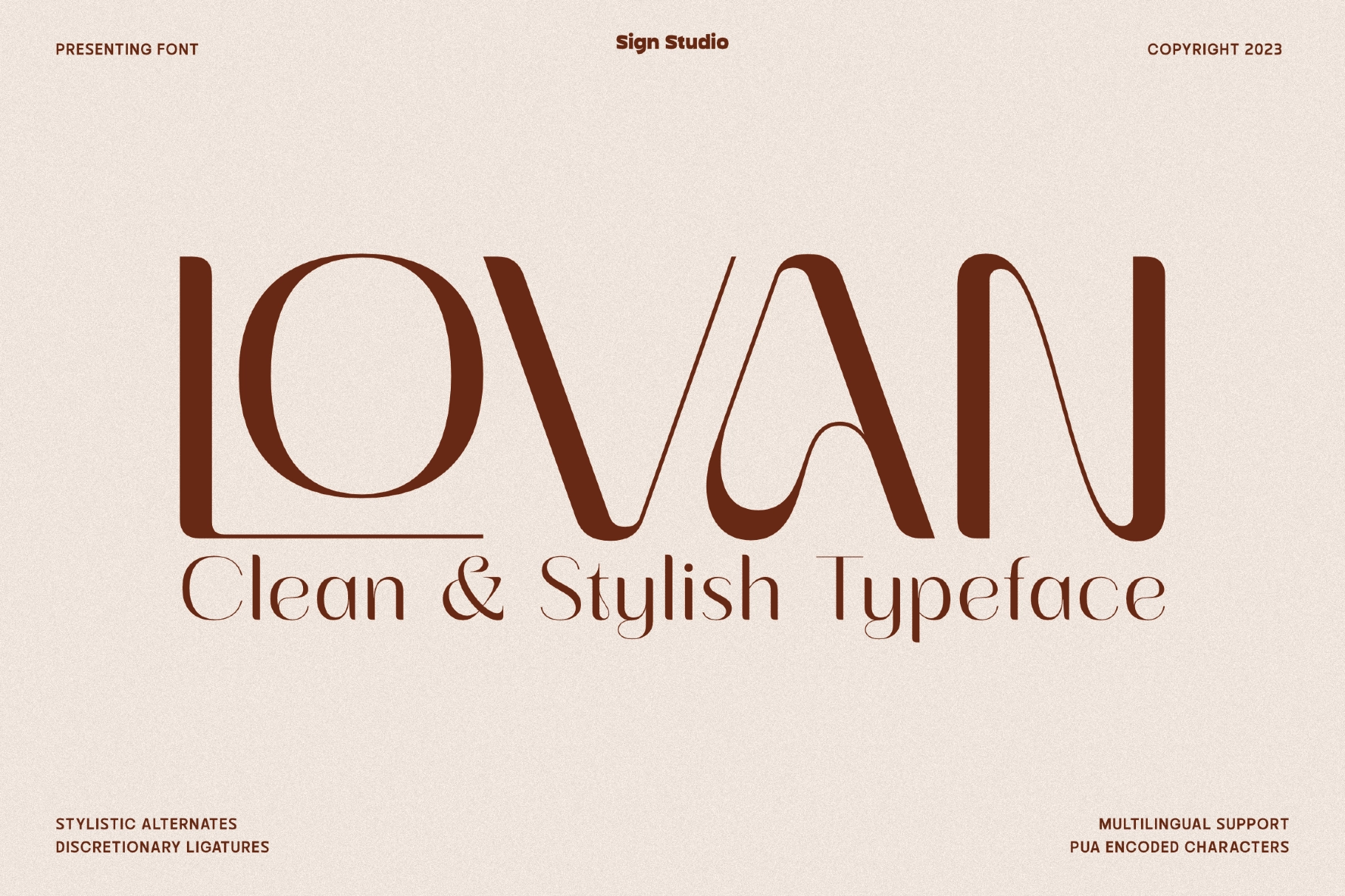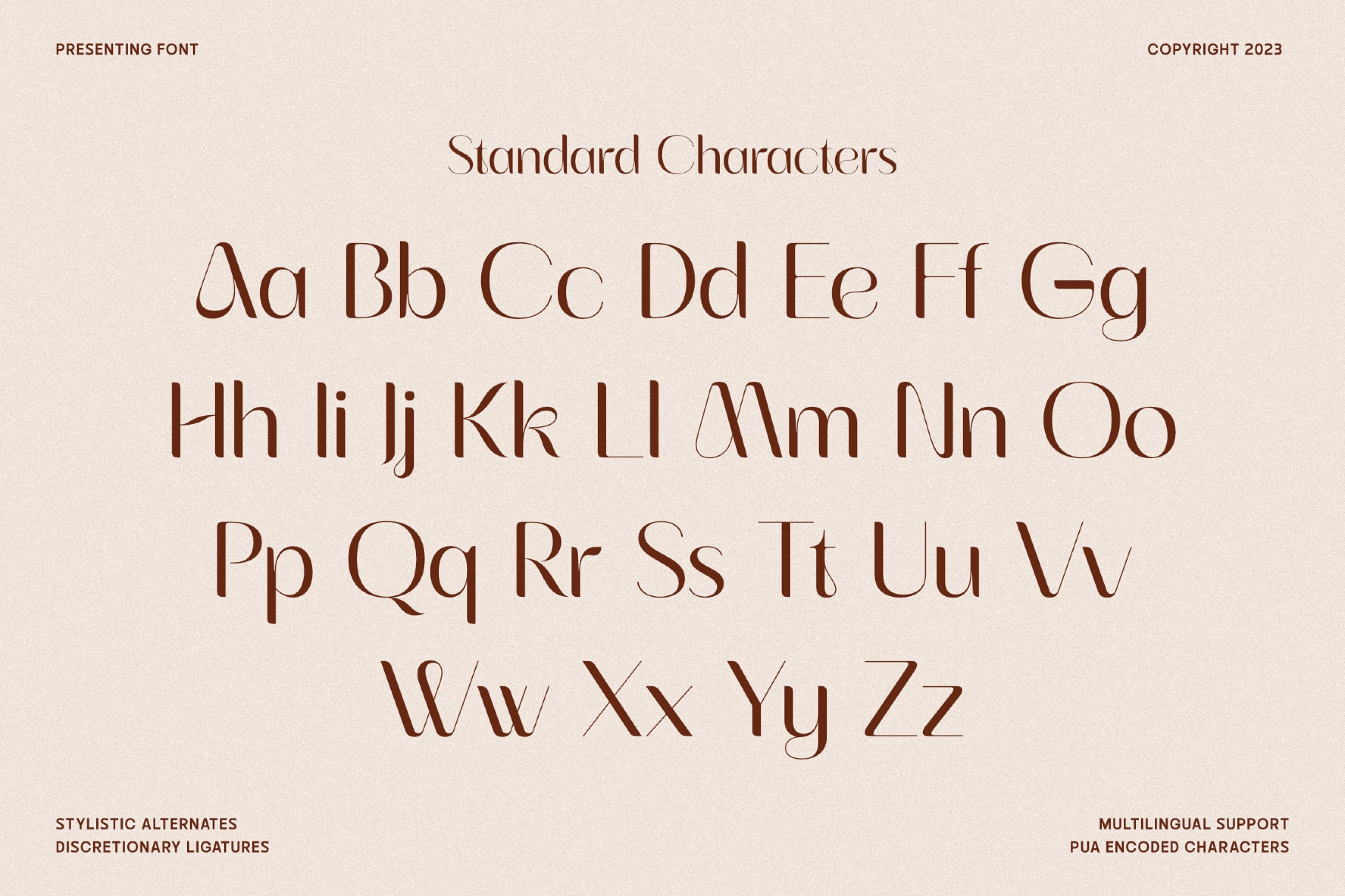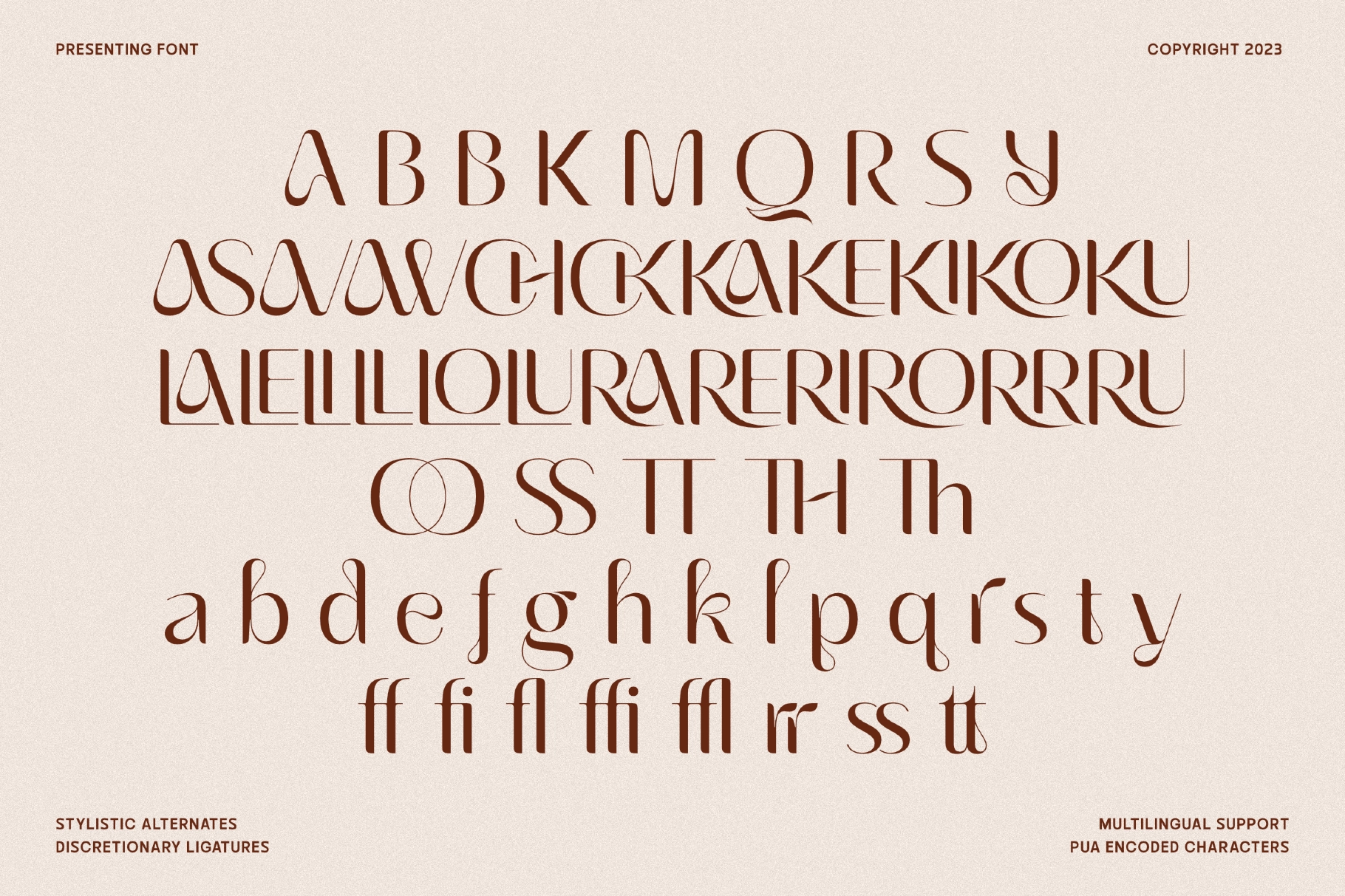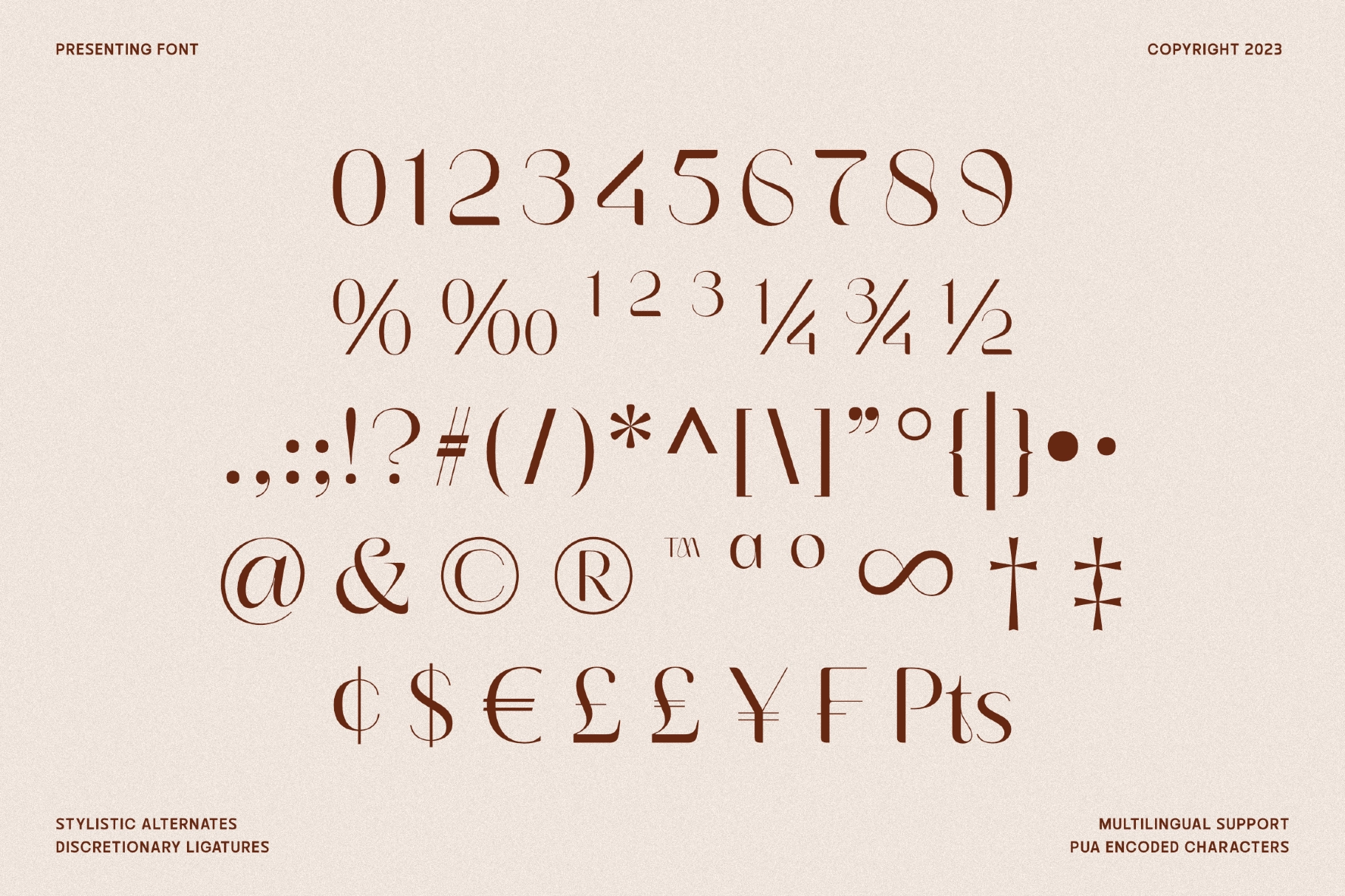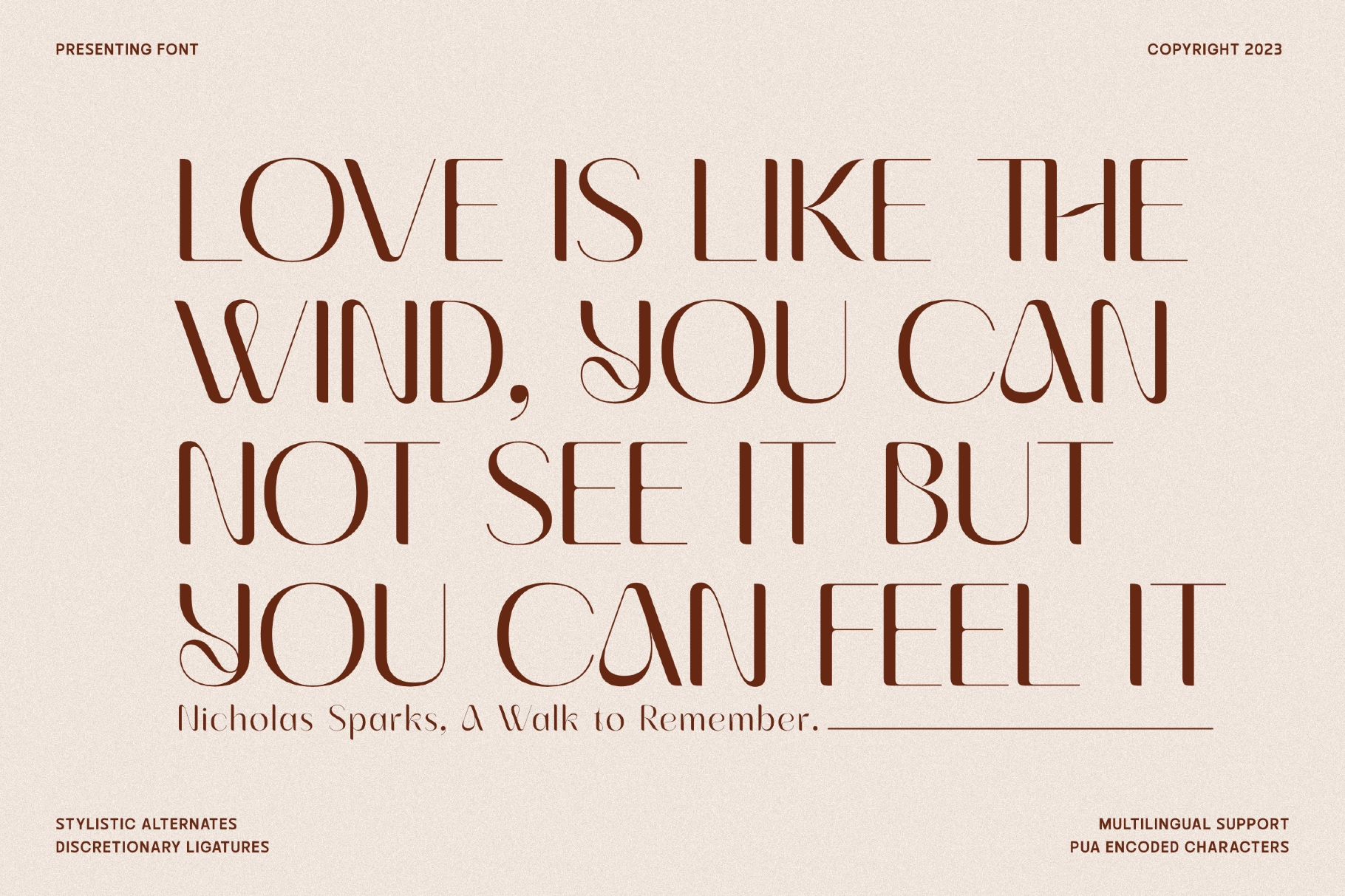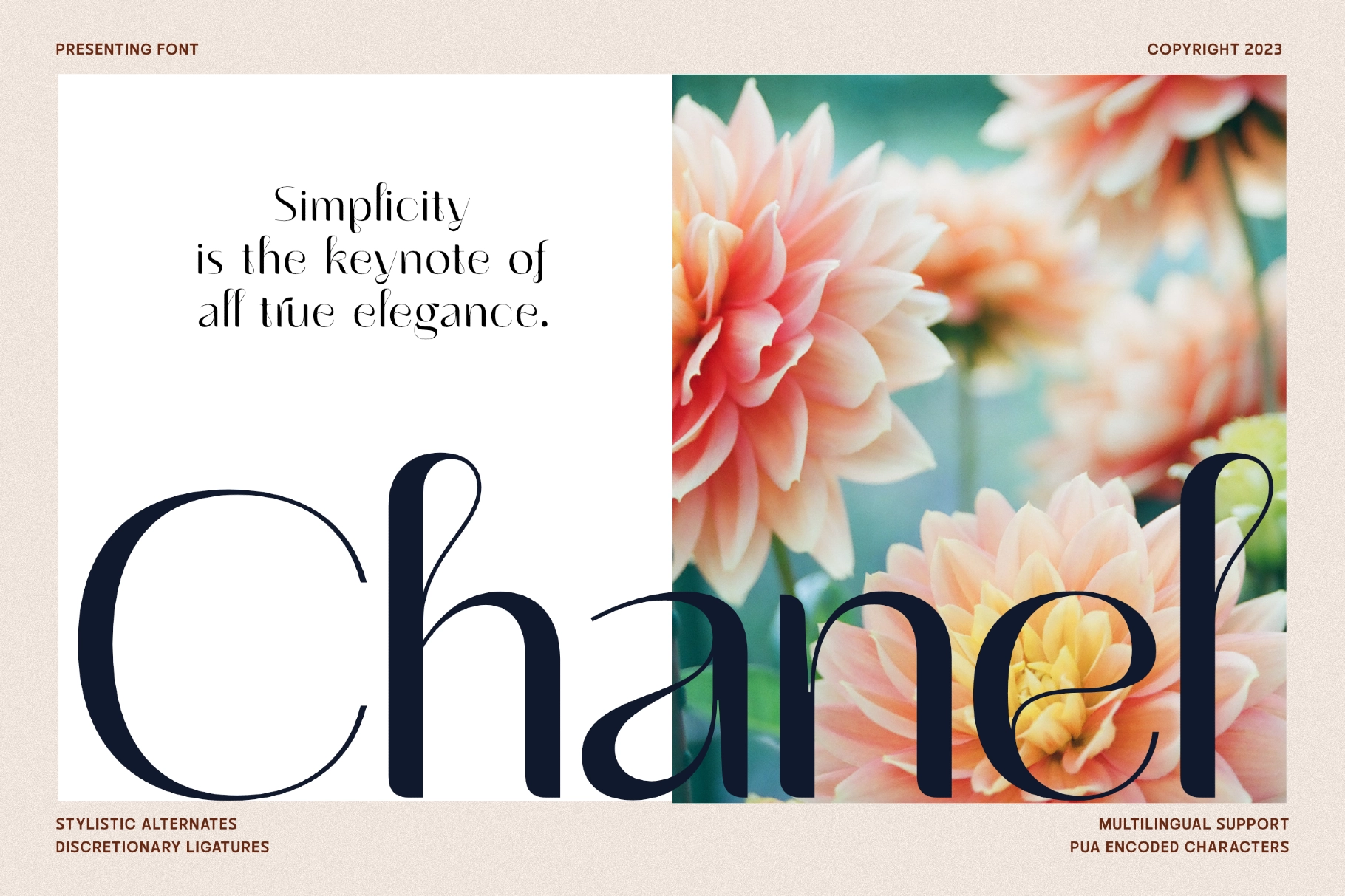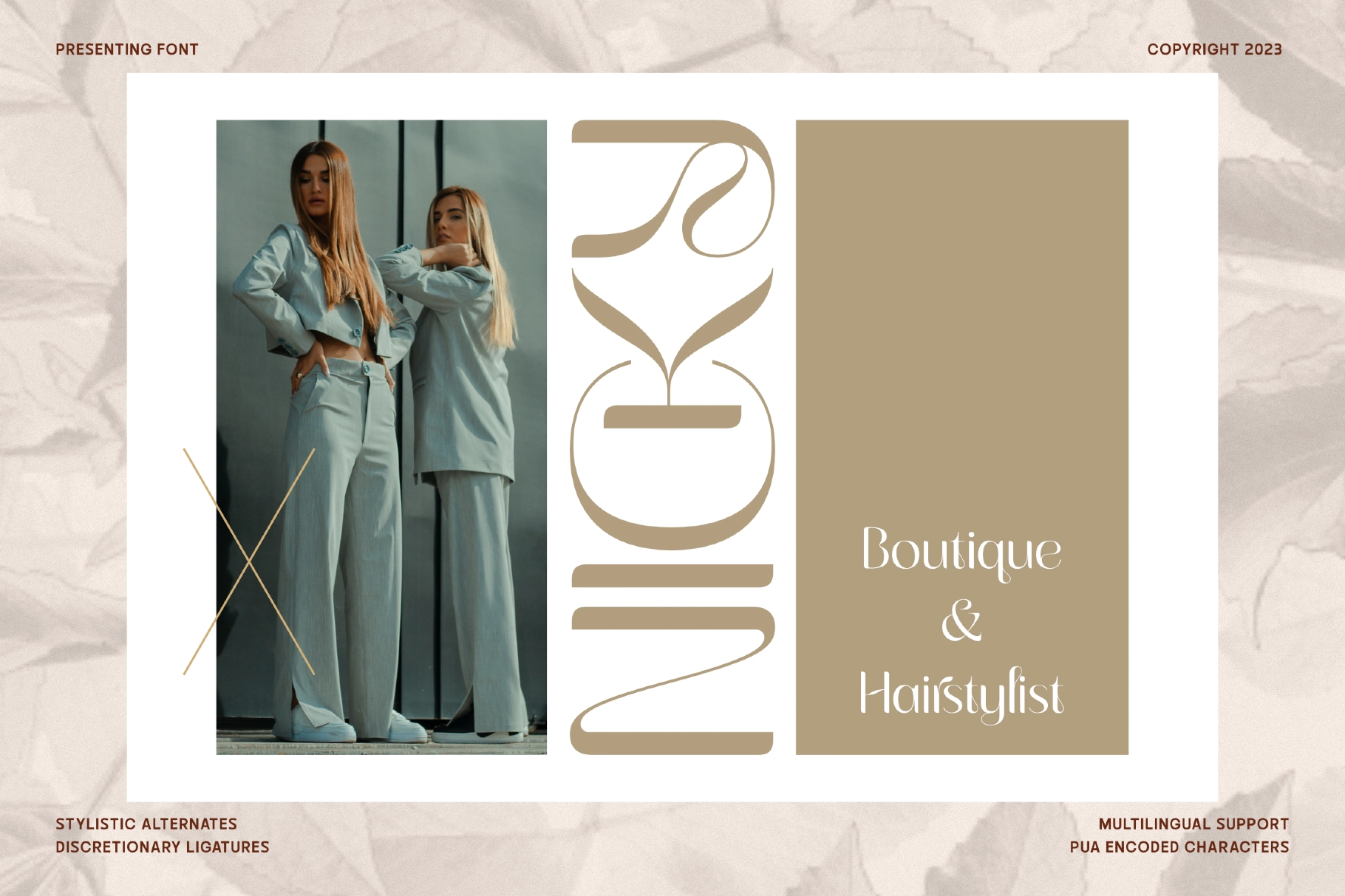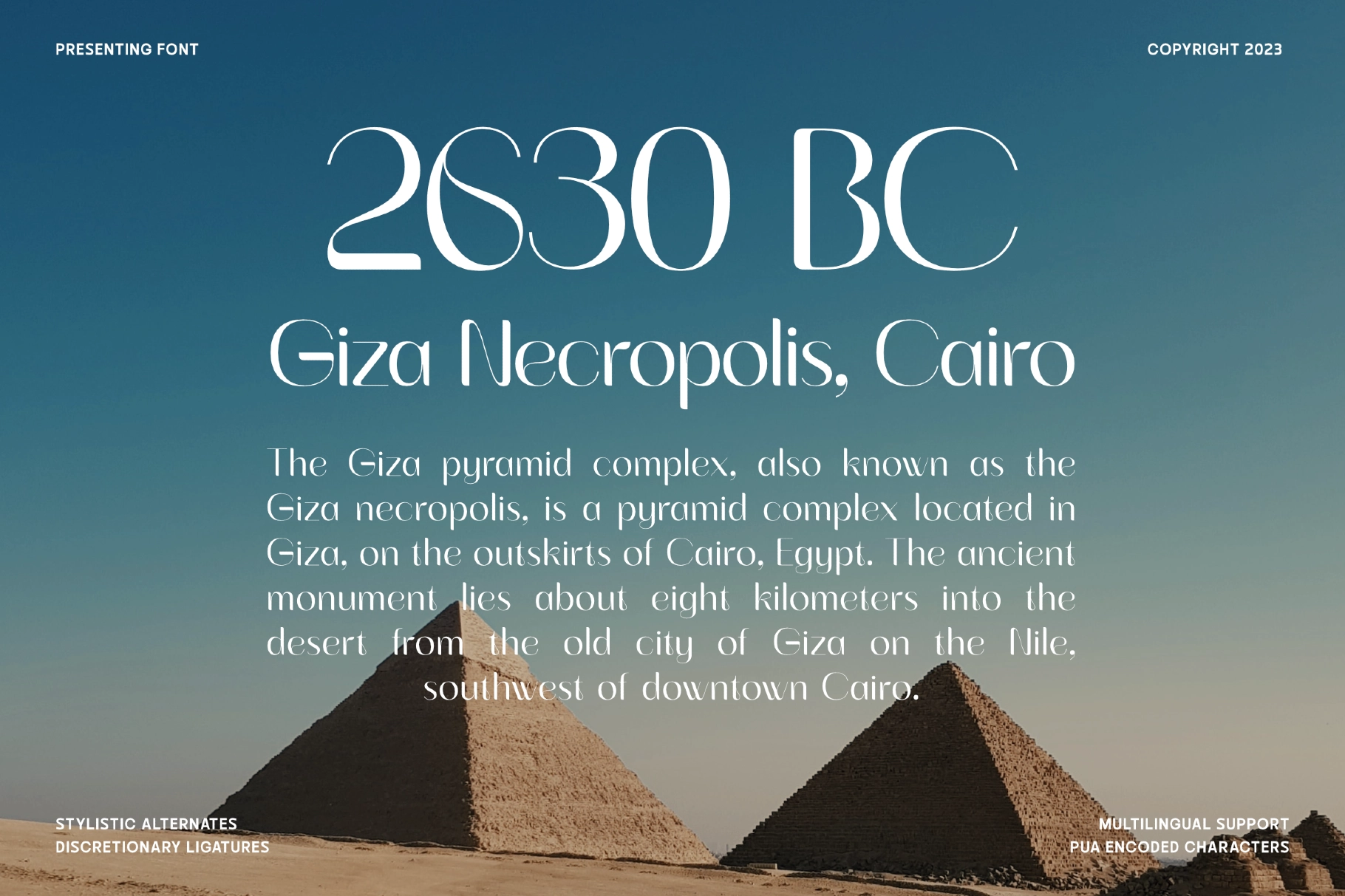
Lovan — Elegant Display Serif Font
Lovan — Elegant Display Serif Font is a refined typeface that blends delicate curves with high-contrast strokes, creating a graceful and expressive visual style. Its sculpted letterforms and subtle decorative details bring a sense of sophistication and romance, making it perfect for designs that require a polished and elegant presence.
Crafted for both beauty and functionality, Lovan works seamlessly across branding, editorial layouts, and luxury-focused projects. The combination of stylish ligatures and flowing forms allows designers to build visually rich compositions while maintaining readability and balance in every line.
• Uppercase & lowercase characters
• Numerals & punctuation
• Standard & discretionary ligatures
• Alternate characters